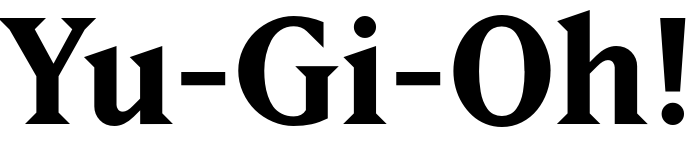
Yu-Gi-Oh! Font
EntertainmentYu-Gi-Oh! is a Japanese trading card game and media franchise created by Kazuki Takahashi. It revolves around characters battling with magical cards, often referencing ancient Egyptian lore.
The logo for the Yu-Gi-Oh looks very similar to Matrix II Bold, a serif font with wedge-shaped details created by Zuzana Licko.